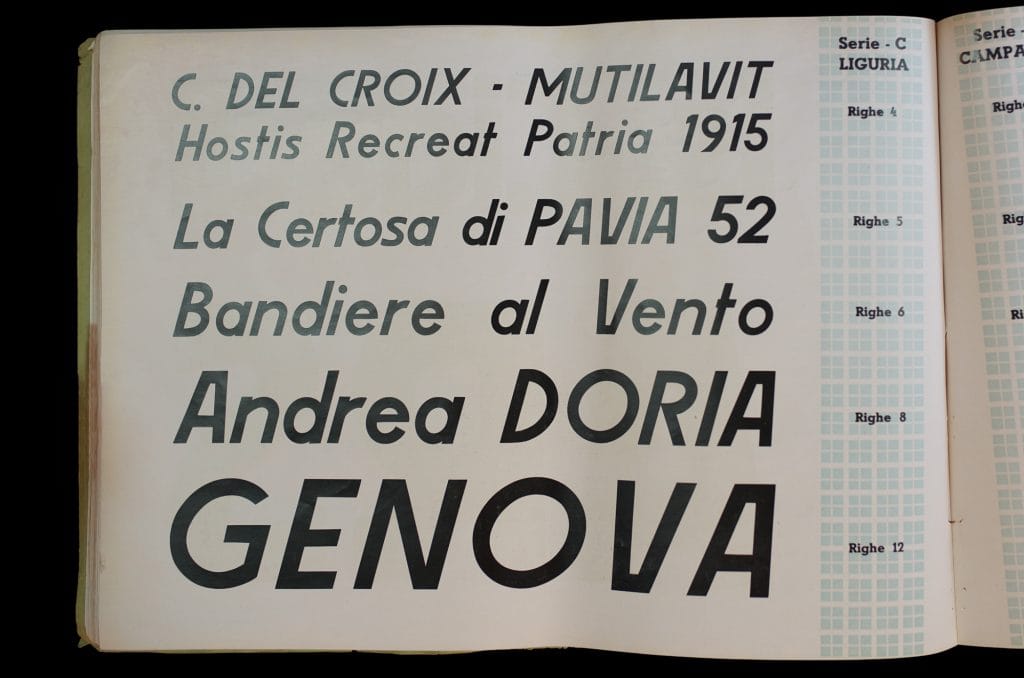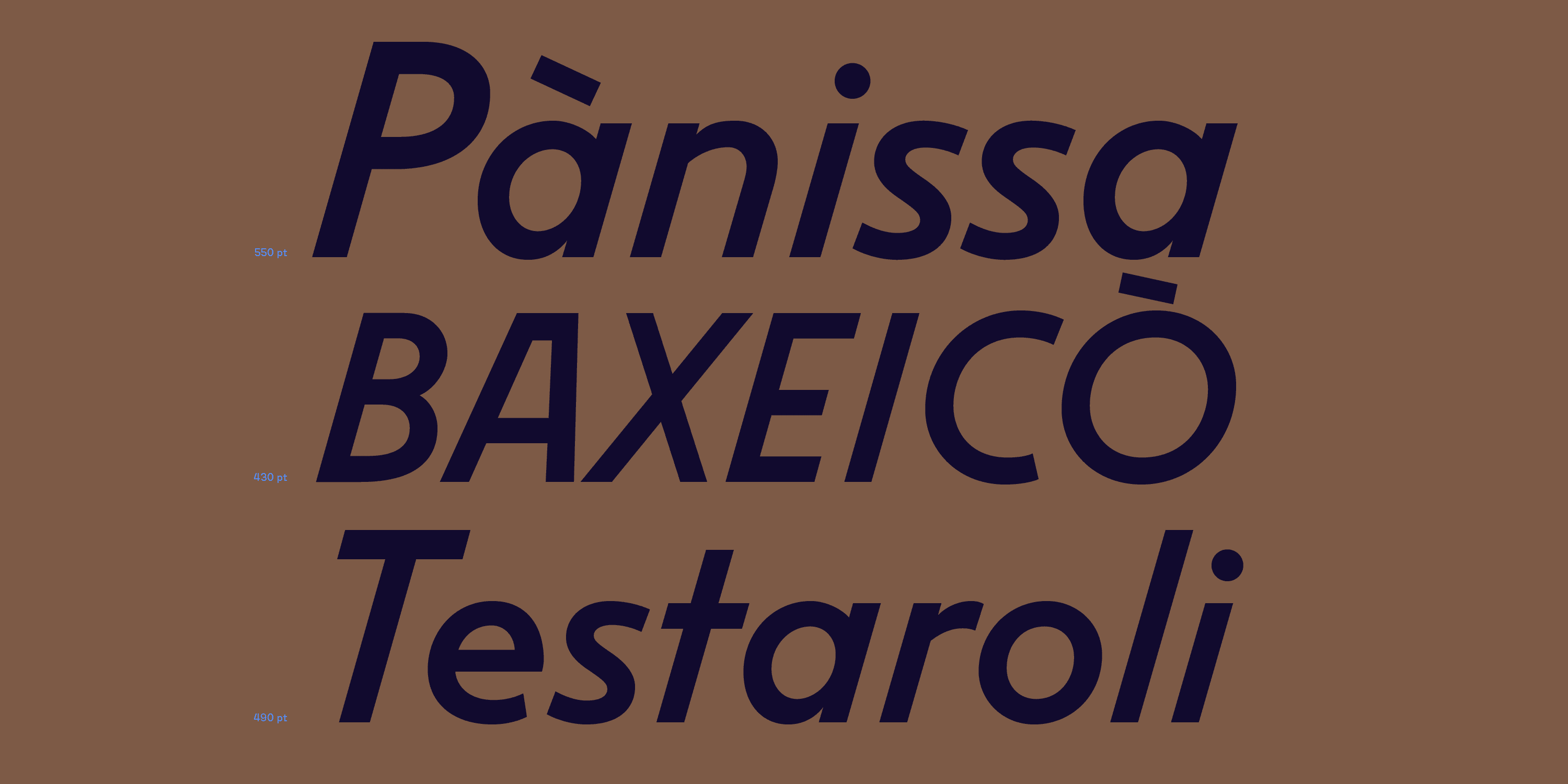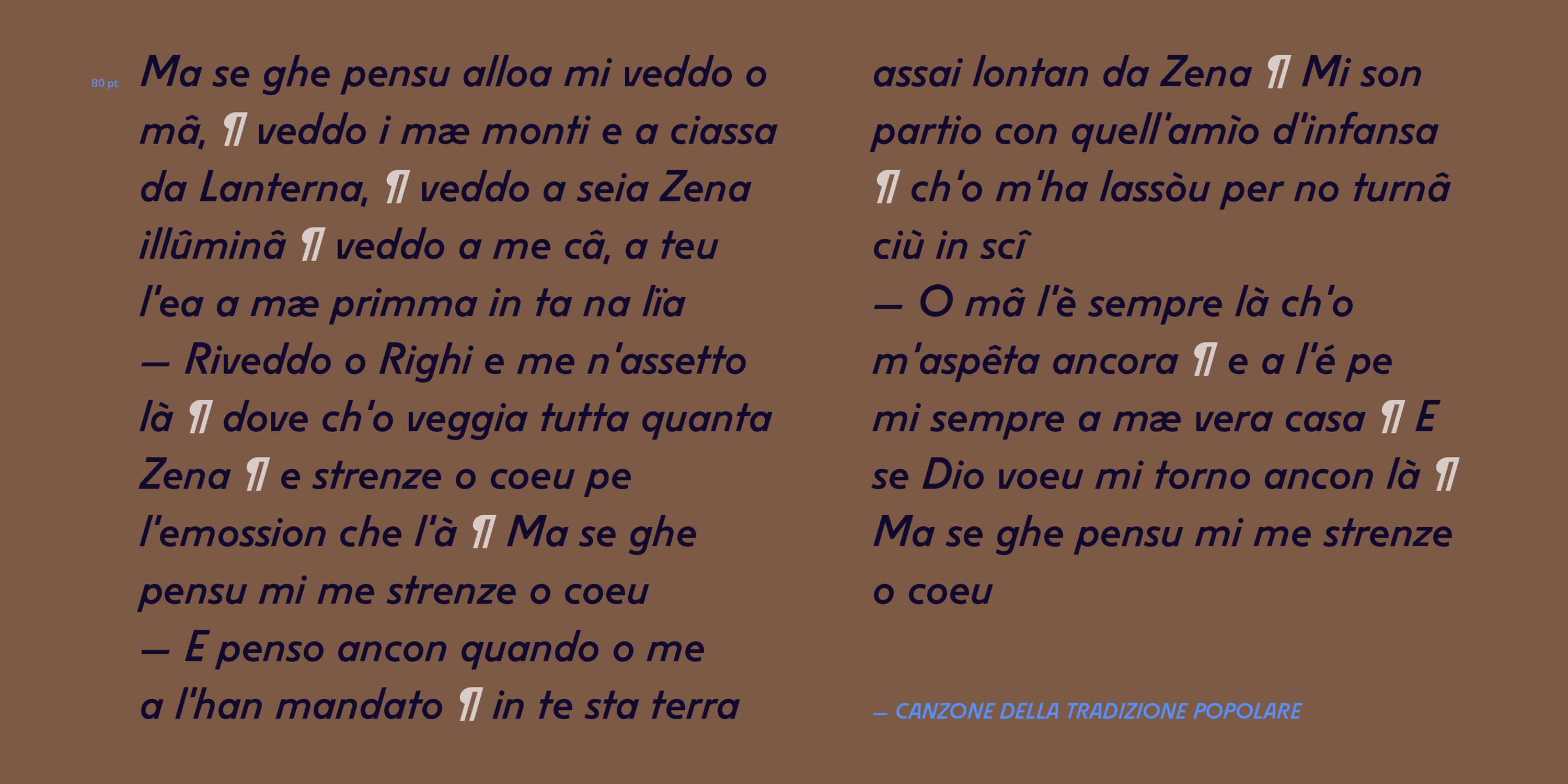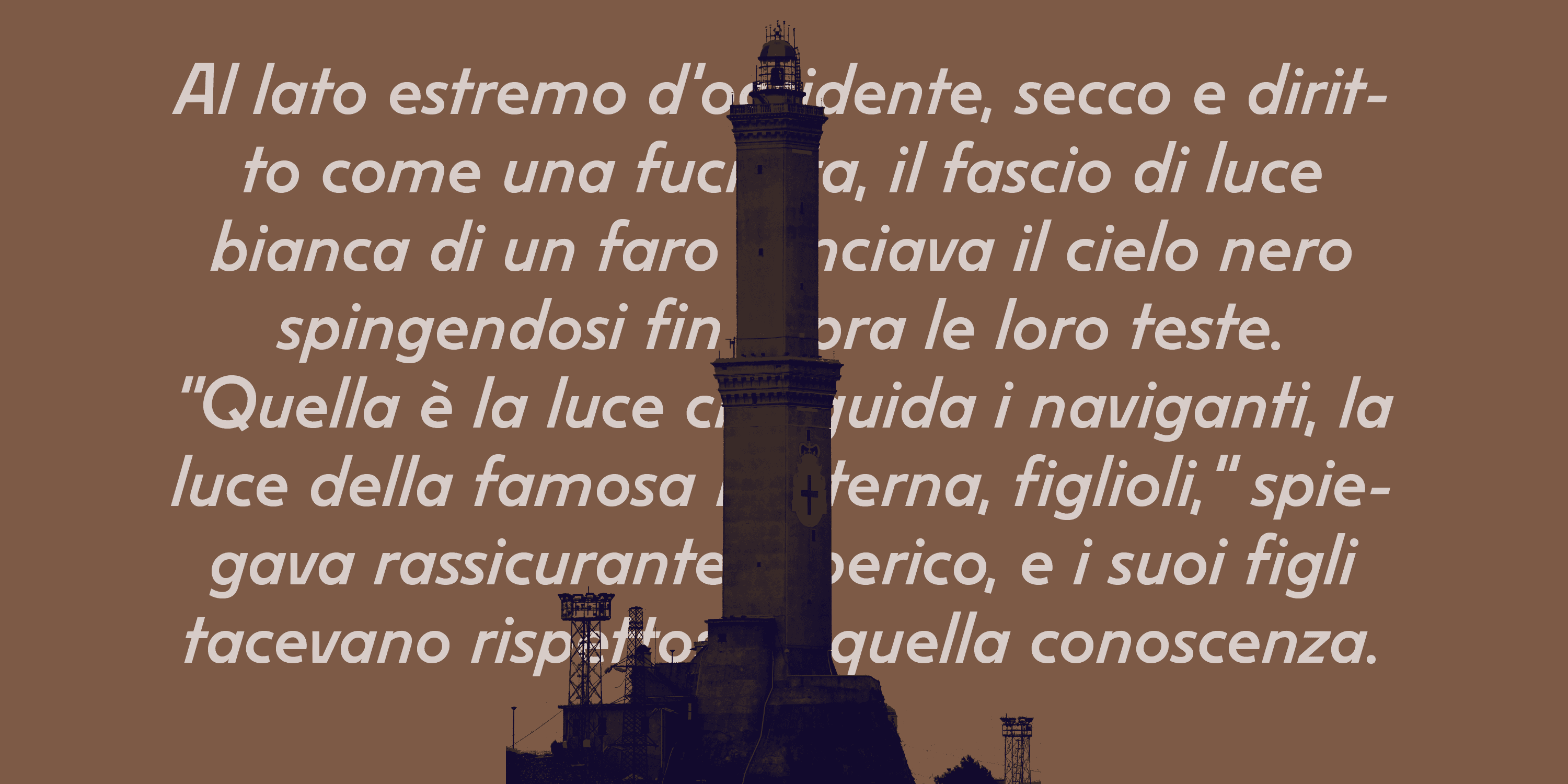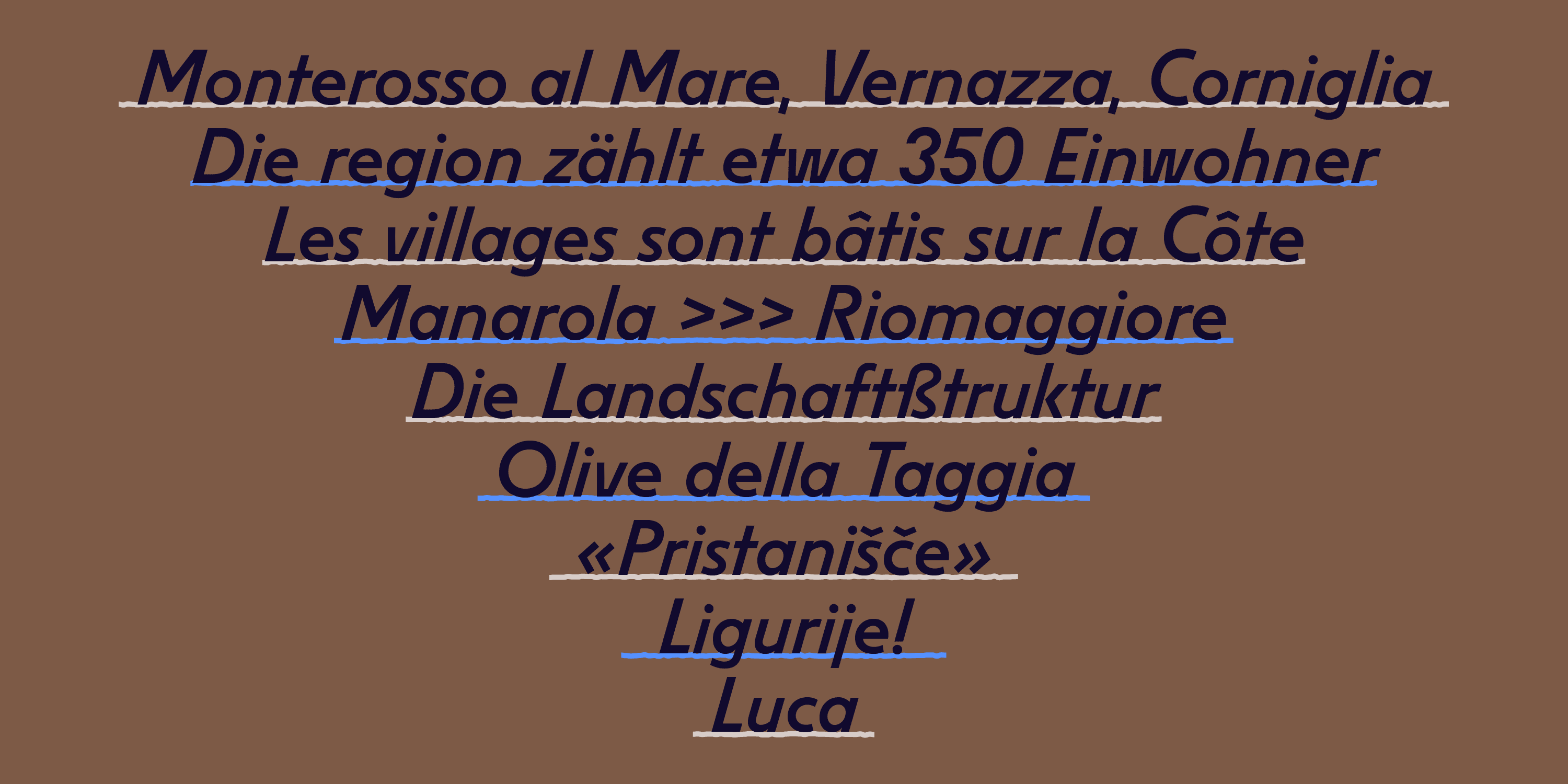
Liguria
Liguria is a slanted monolinear sans with a raw but straightforward appearance. Its utilitarian design evokes a mechanical aesthetic, vaguely reminiscent of German geometric sanserifs of the 1920s such as Futura.
Beatrice D’Agostino
2024-2025
Cut by the Xilografia Verona around 1938, Liguria was available as a wood type in five sizes: 4, 5, 6, 8, 12 lines (50–150 points). Liguria is an italic sans paired with slanted capitals of classical proportions, with narrow B, E, S and wide O. Its main feature is the flat base and flat top of the oblique letters (A, V and W as well as v and w) — a design solution that minimises the need for kerning.
The AM Liguria digital revival is faithful to the original, but ‘it was necessary to adjust the proportions and contrast’ in order to retain its original roughness and spontaneity, explains the designer Beatrice D’Agostino. ‘The counters of the letters a, d, p, and q have been refined, and the terminals of c, f, and s made more consistent with one another, while the punctuation has been completely redesigned.’
Italic